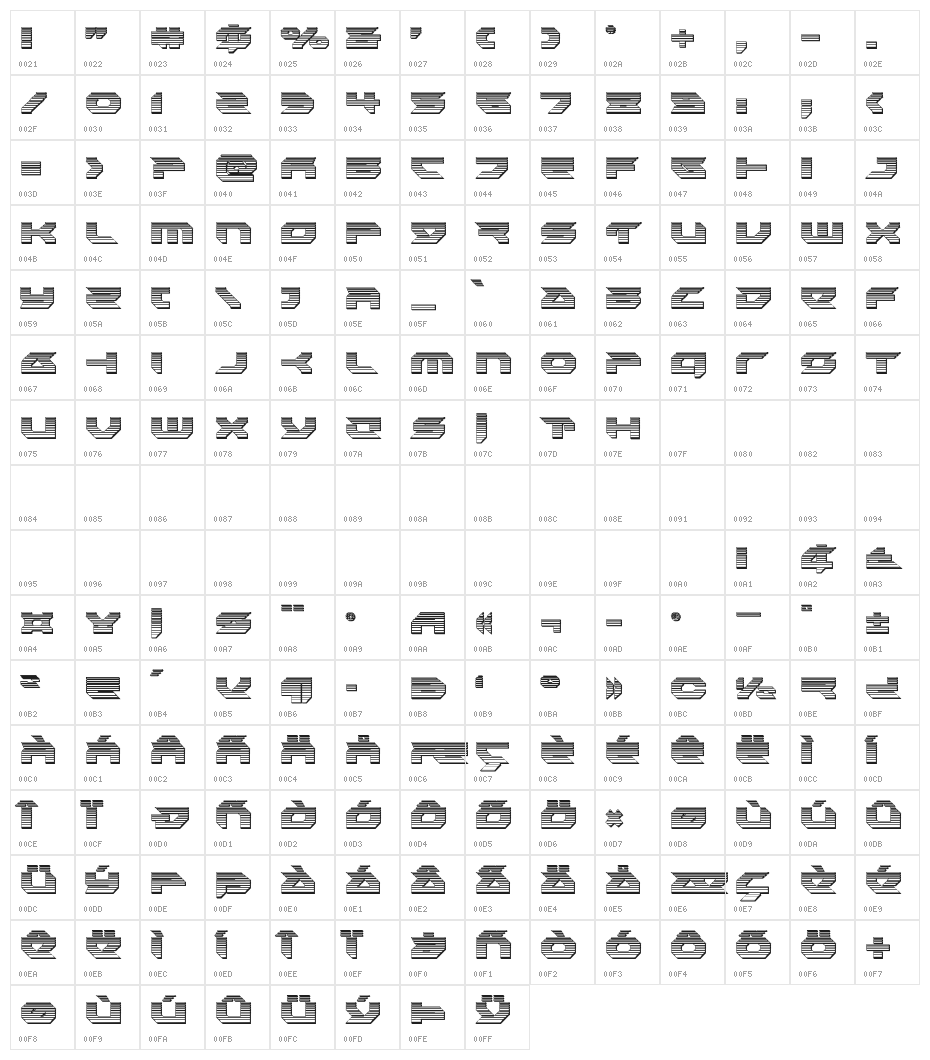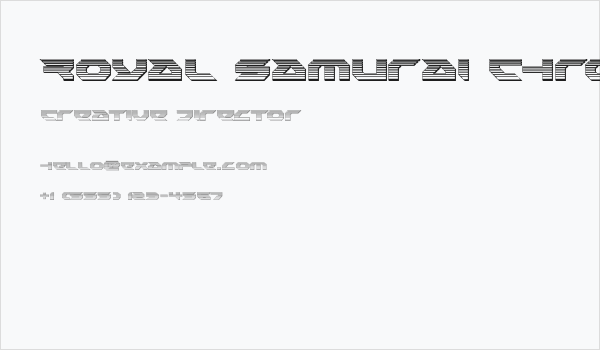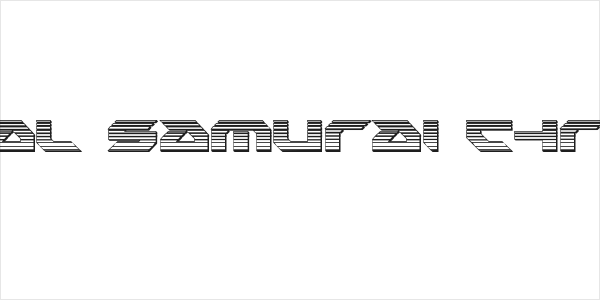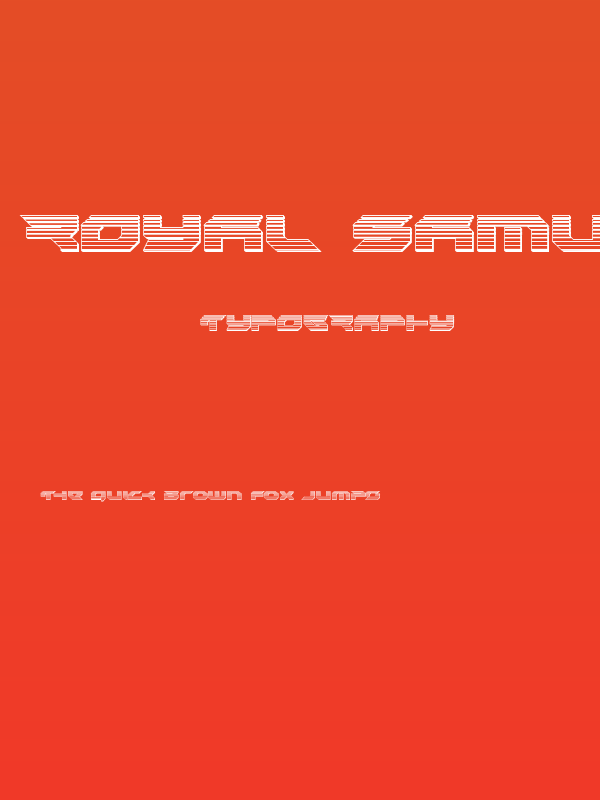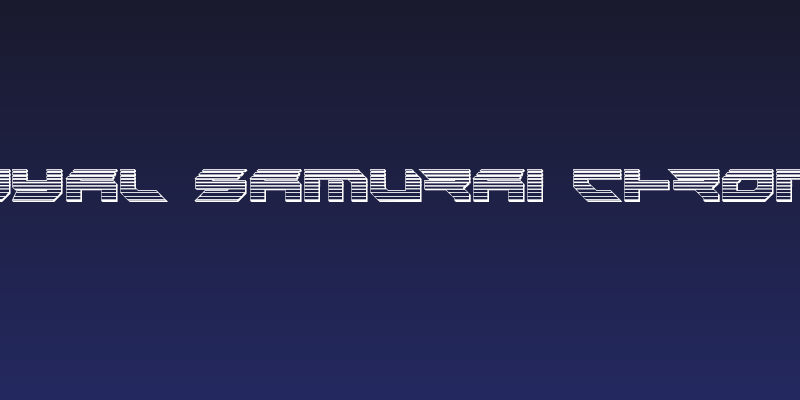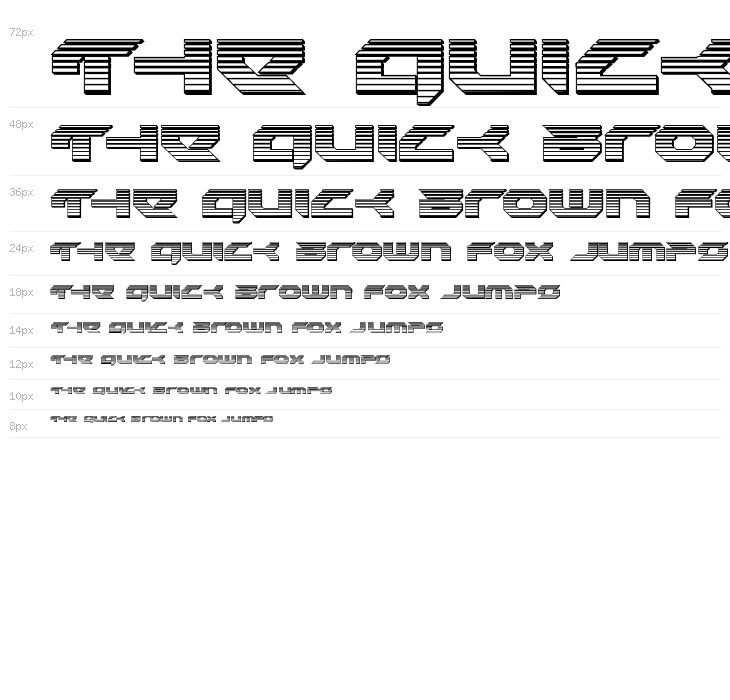
Royal Samurai Chrome Font
Royal Samurai Chrome Description
This font features a bold, futuristic design with a distinct three-dimensional effect created by layered lines. The geometric shapes and sharp angles give it a modern, tech-inspired look. Each character is crafted with precision, emphasizing a sense of depth and movement. The uppercase and lowercase letters maintain a consistent style, while the numerals and special characters complement the overall aesthetic. This font is ideal for projects that require a strong, eye-catching visual impact.